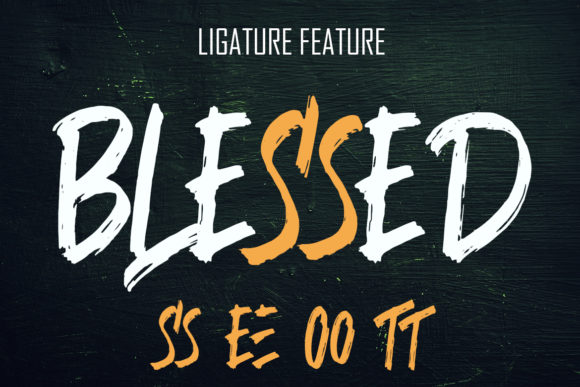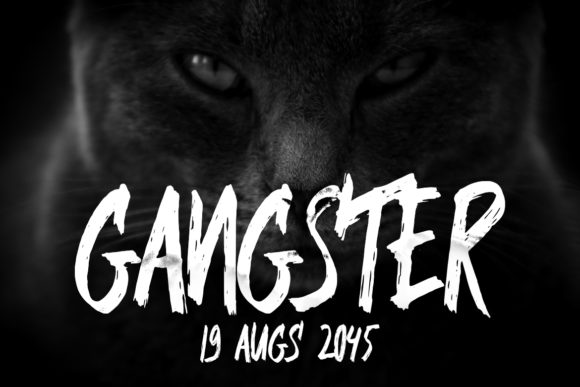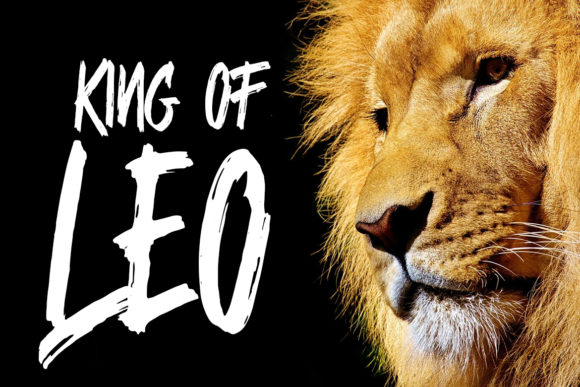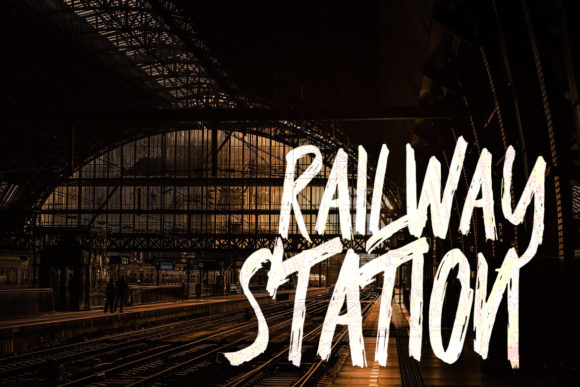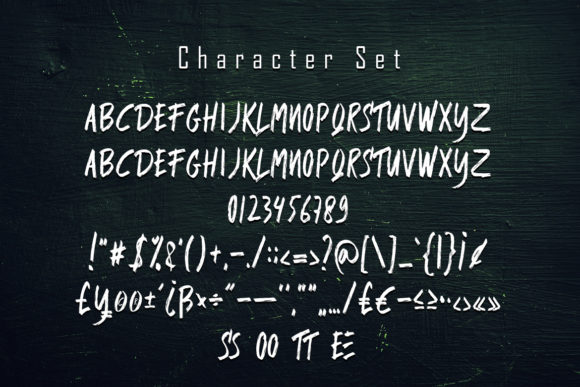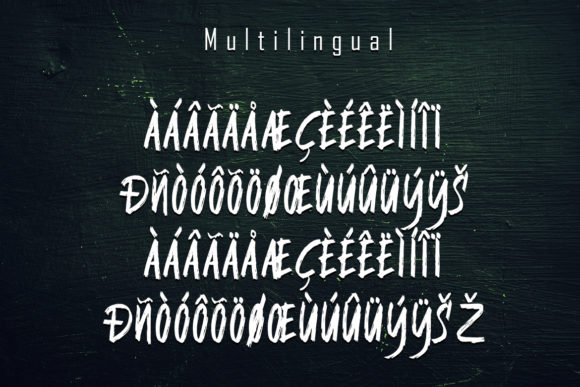
The Glossy Font: A Textured Brush Style to Elevate Your Designs
I’ll never forget the time I was working on a crafting project, pouring my heart and soul into creating the perfect design. But something was missing – a font that would add that special touch to make it stand out. That’s when I stumbled upon the Glossy font, a unique display font with a textured brush style that’s been a game-changer for my designs. In this article, I’ll share my experience with Glossy, its features, and how to make the most of it in your crafting designs.
An Honest Review of Glossy Font
What I Love About Glossy Font
- ✨ Unique textured brush style: Glossy font has a distinct, hand-painted look that adds a personal touch to any design.
- ✅ Easy to read: Despite its textured style, Glossy font remains clear and readable, even in larger sizes.
- 💫 Versatile: Glossy font can be used for various design projects, from crafting and scrapbooking to posters and social media graphics.
While Glossy font is an excellent choice for many designs, there are a few things to keep in mind:
- 🤔 Limited use in small sizes: Glossy font may not be the best choice for small text or body copy, as its textured style can become blurry.
- ⚠️ Not suitable for formal designs: Glossy font’s playful, hand-painted style may not be suitable for formal or professional designs, such as business cards or resumes.
The Backstory of Glossy Font
Glossy font was designed with the intention of capturing the look and feel of hand-painted signs and advertisements. The designer wanted to create a font that would evoke a sense of nostalgia and playfulness, while still being easy to read and versatile. The result is a unique font that’s perfect for adding a personal touch to your designs.
Q: What is the best way to use Glossy font in my designs?
A: Glossy font is best used as a display font, perfect for headings, titles, and emphasis text. Experiment with different sizes and colors to make it stand out.